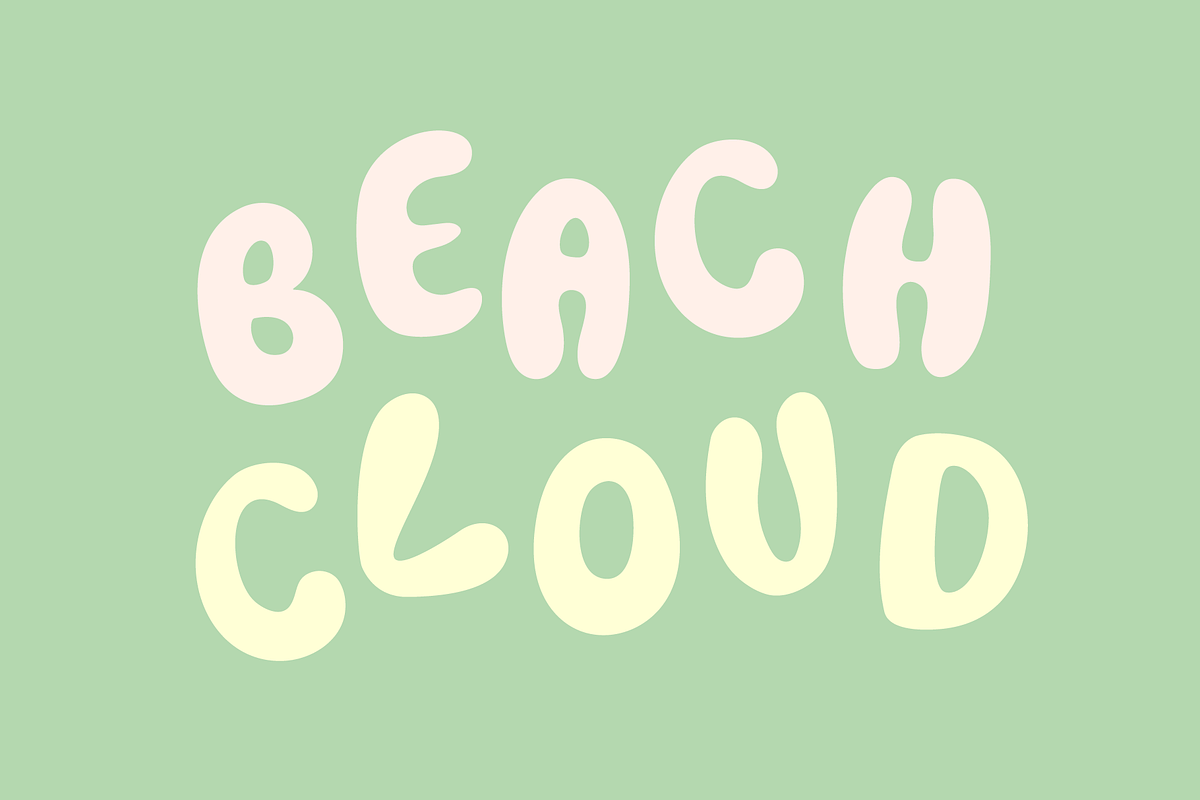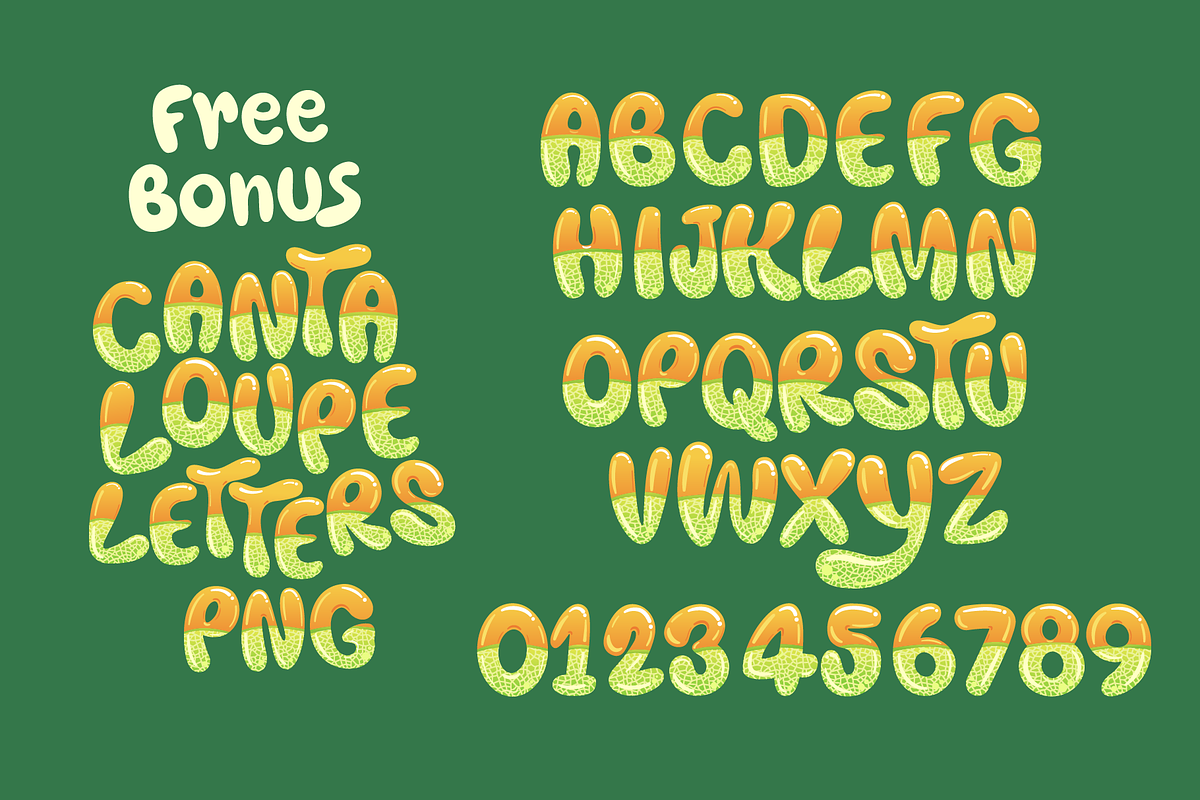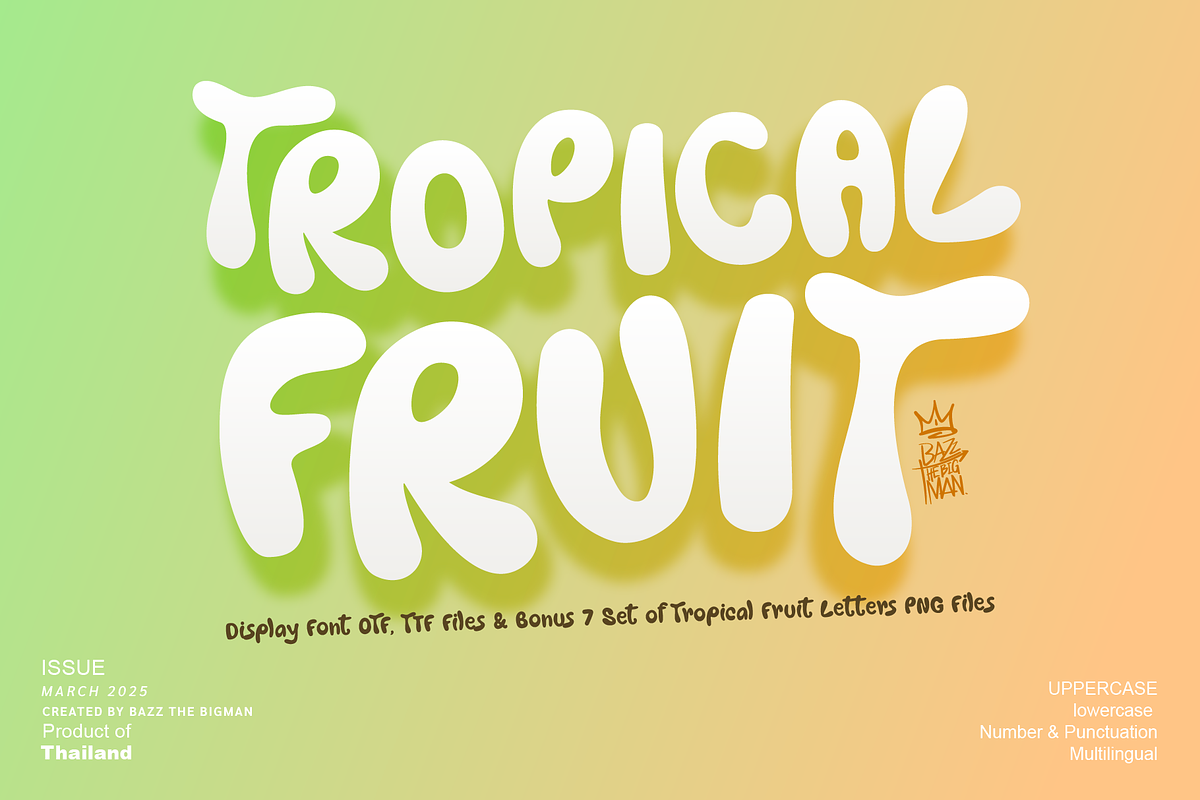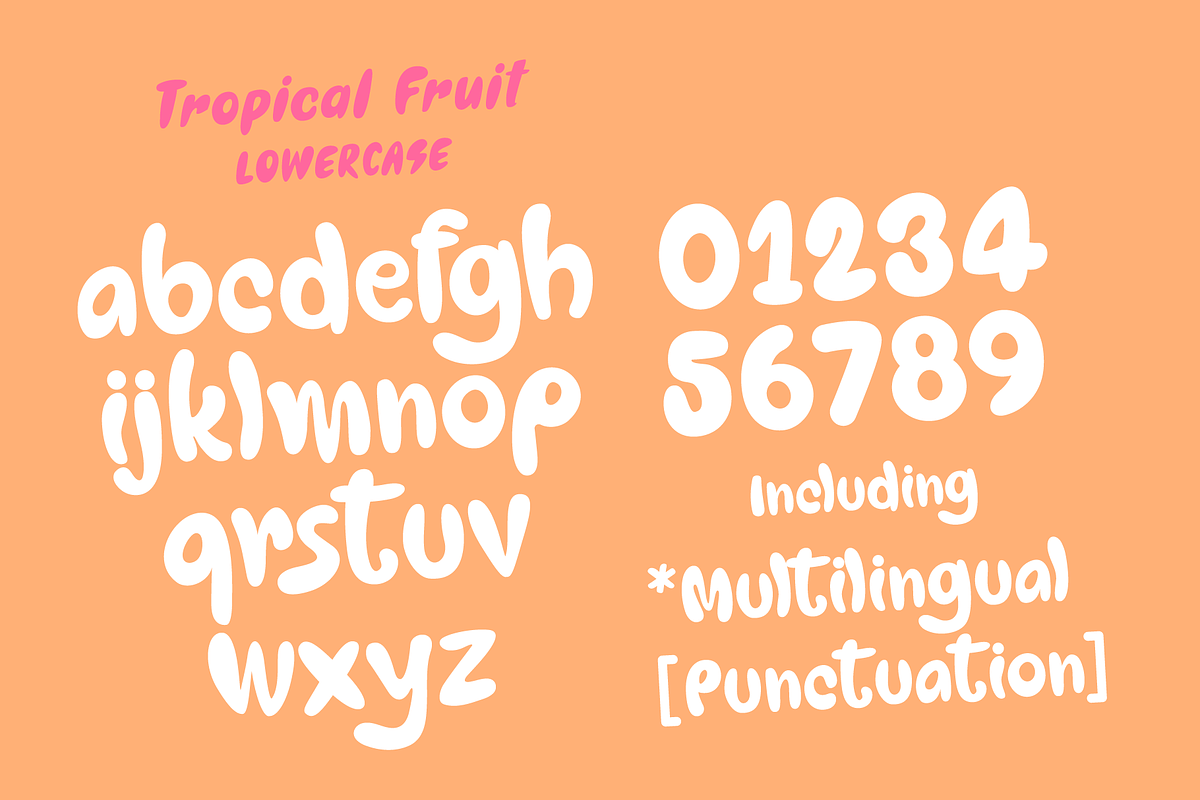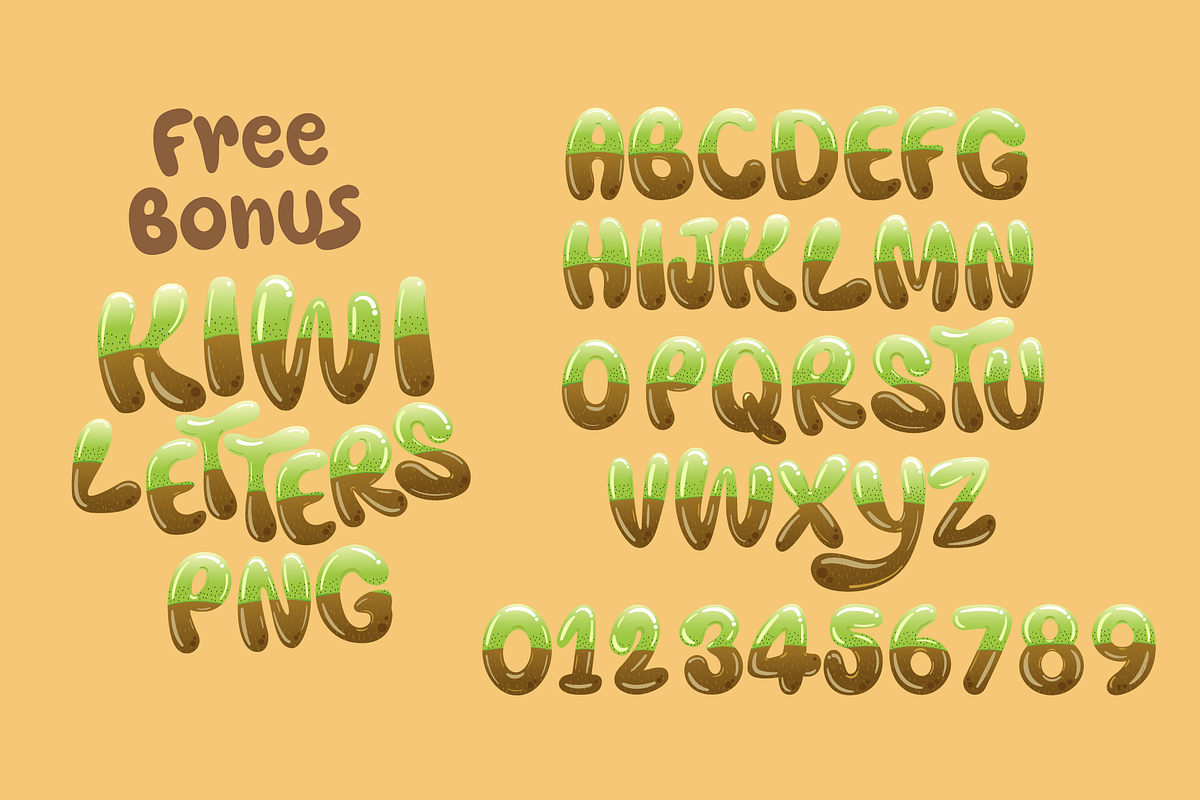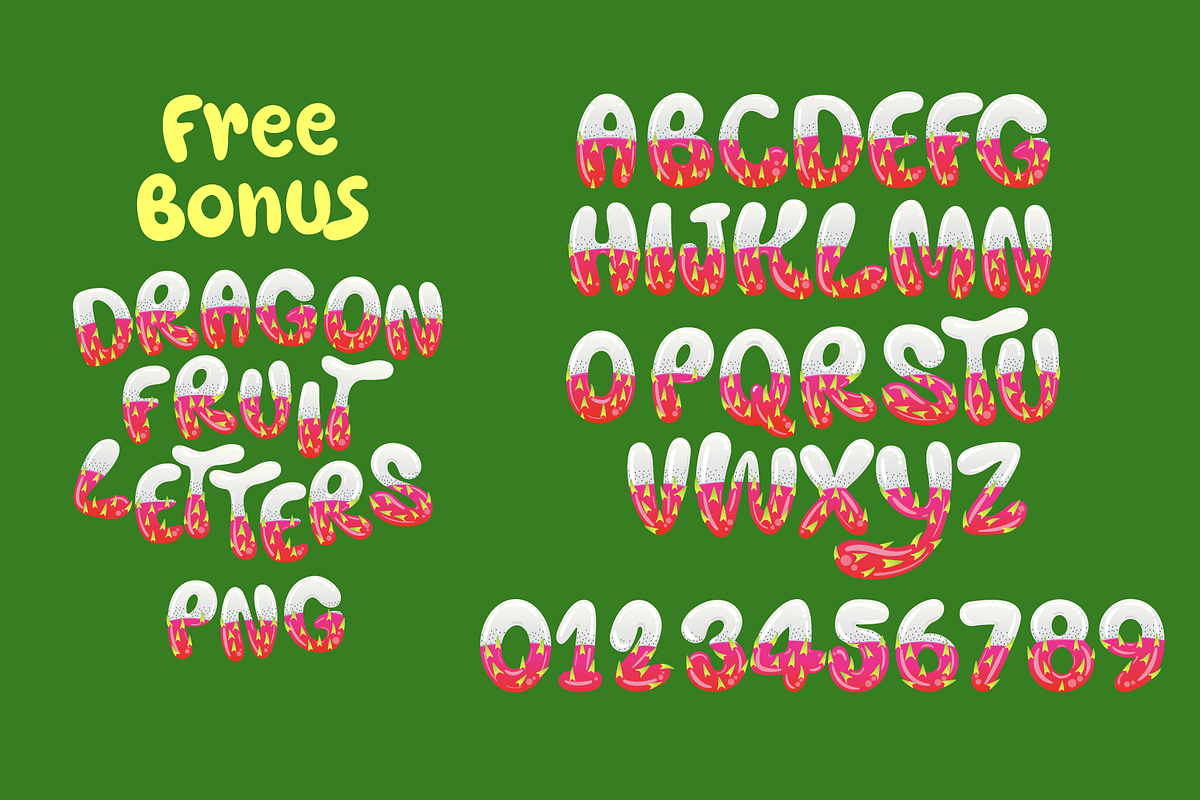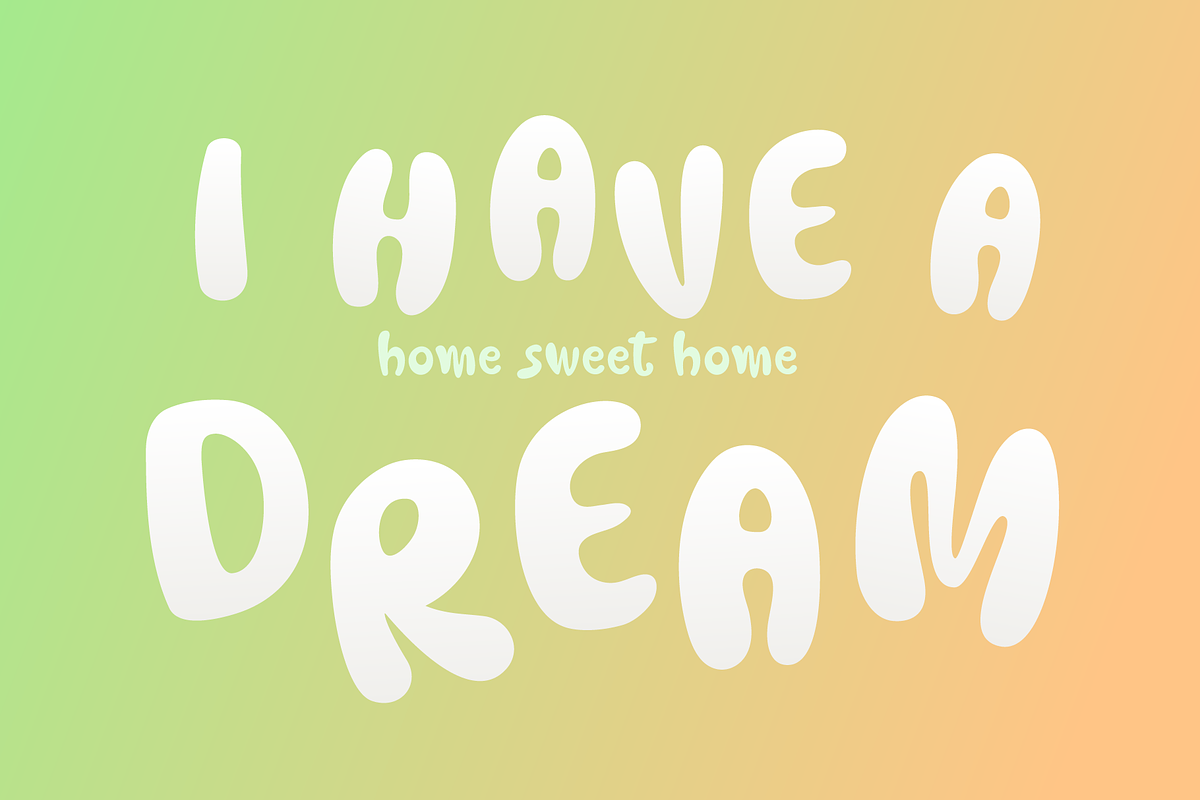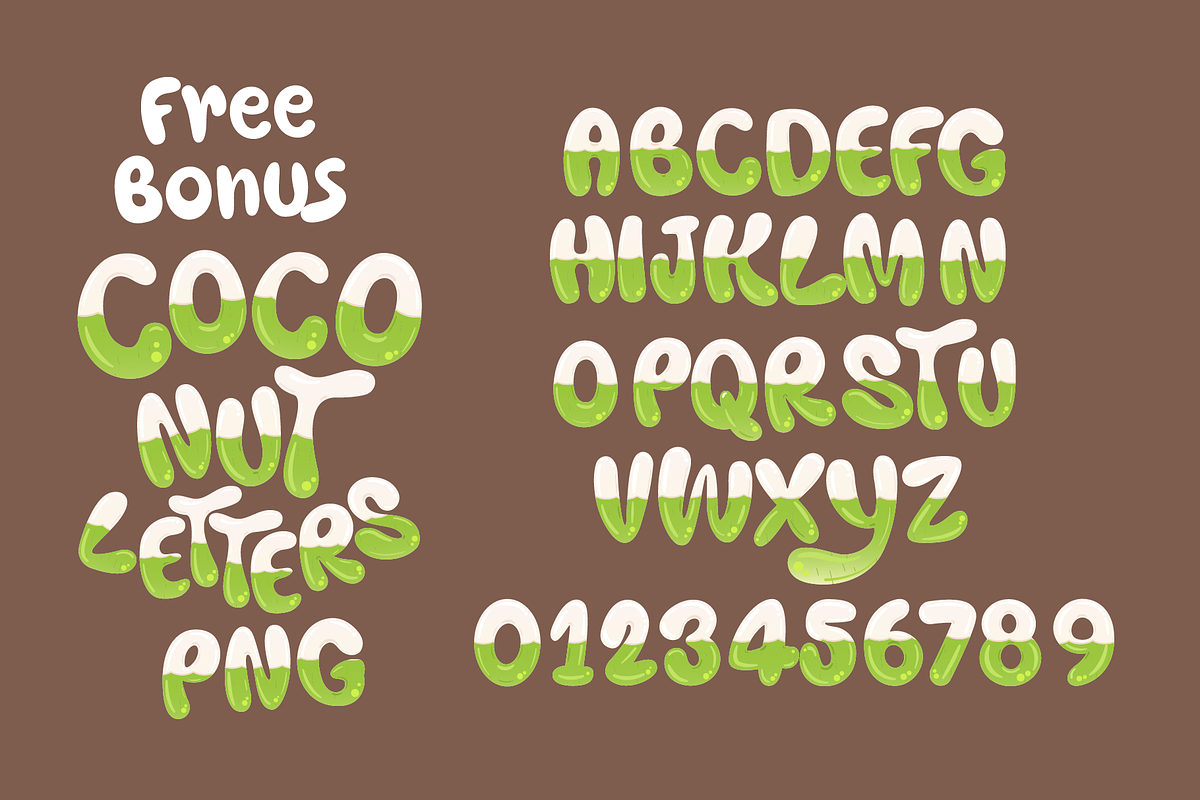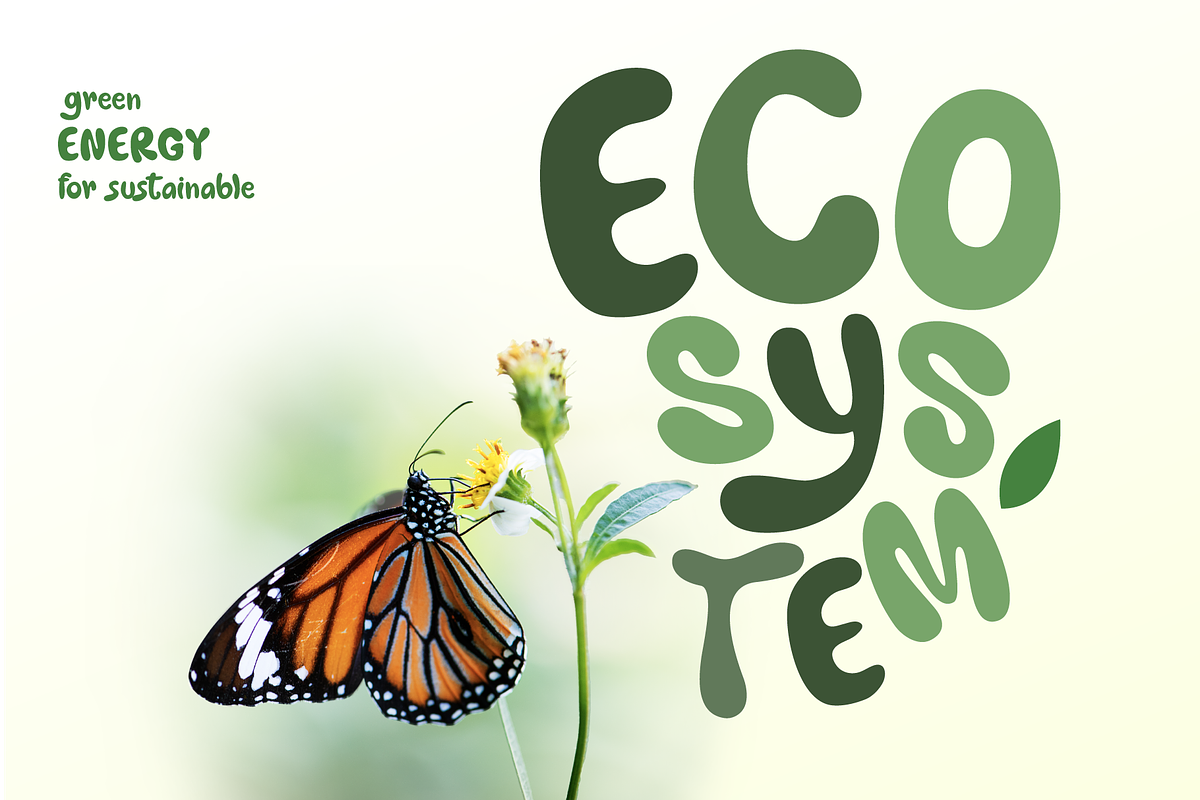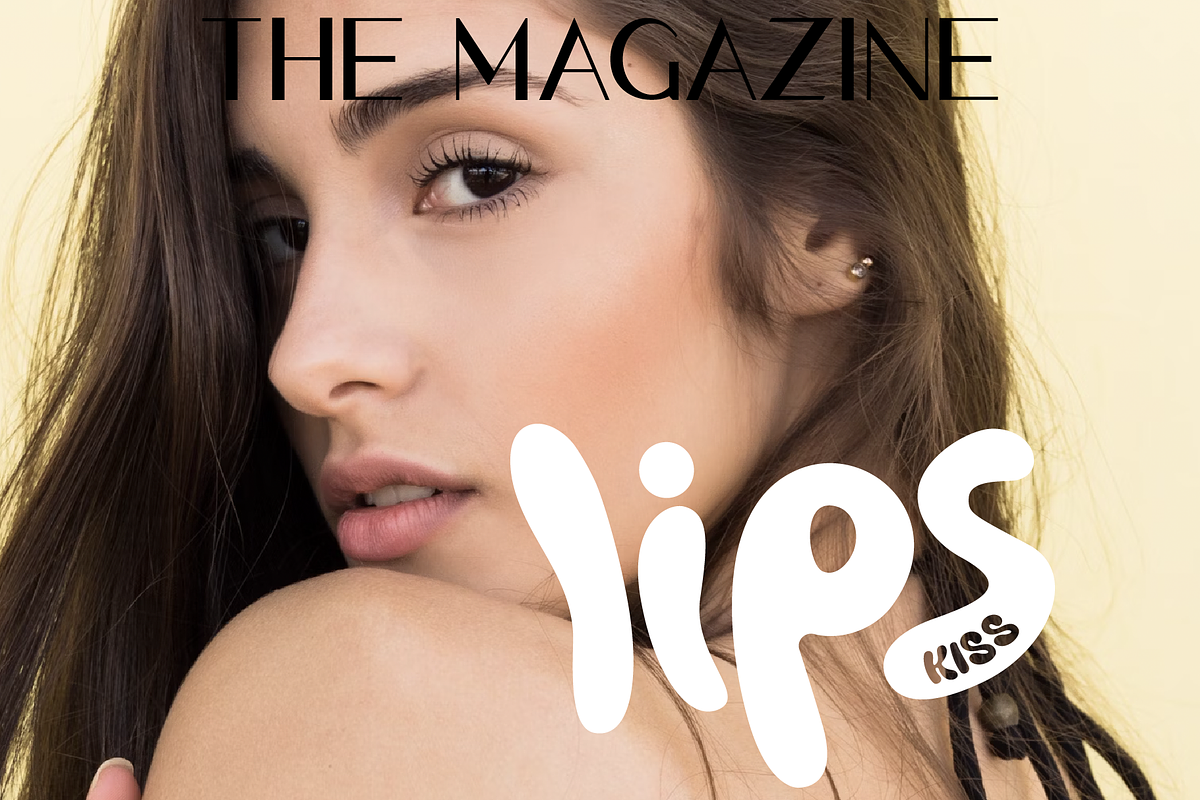
Tropical Fruit
Introducing the Tropical Fruit, an energetic eco-display font designed to exude joy and positivity. Tropical Fruit effortlessly uplifts any eco-conscious or humor-filled project, bringing a vibrant, sun-drenched twist that is hard to ignore! This font comes with PUA encoding, which conveniently affords easy access to the range of awesome glyphs. Best of all, Tropical Fruit doesn’t come alone
– it brings a fabulous free bonus: a set of seven delightful fruit-lettered PNG files. Enliven your creative endeavor with Tropical Fruit - the font that's a celebration of both nature and laughter!